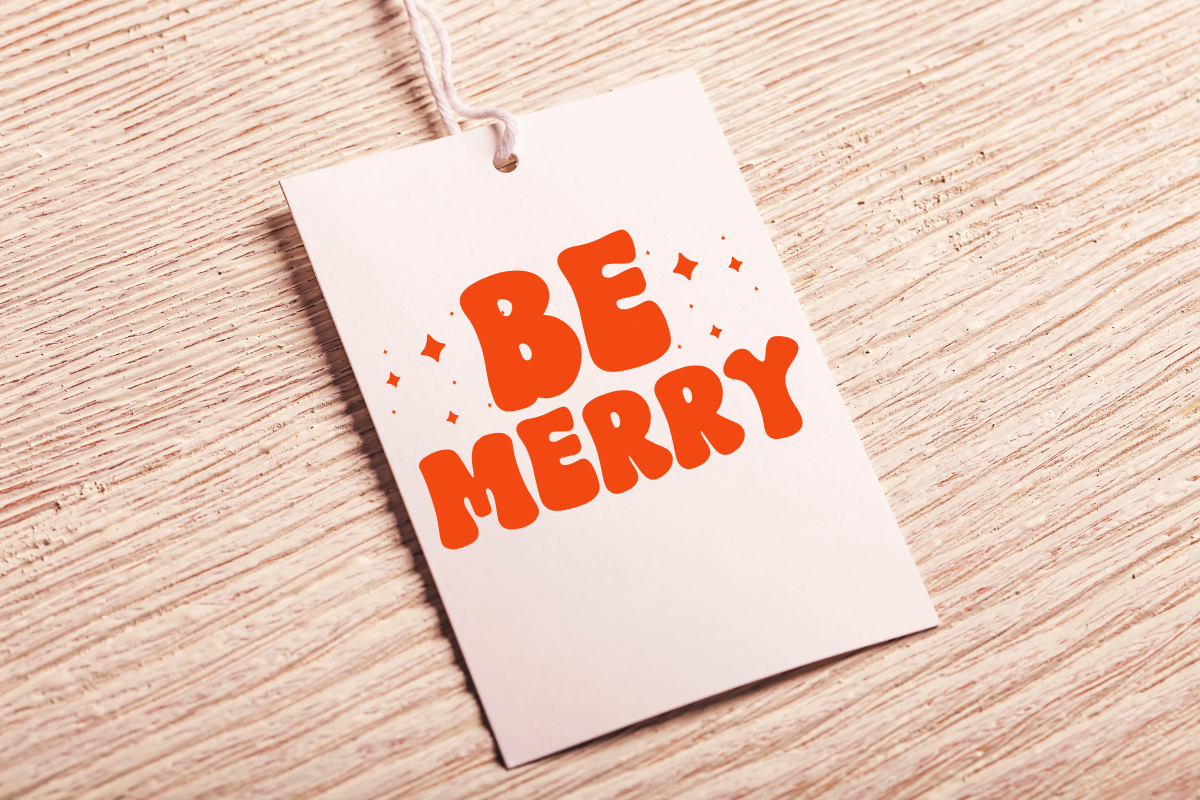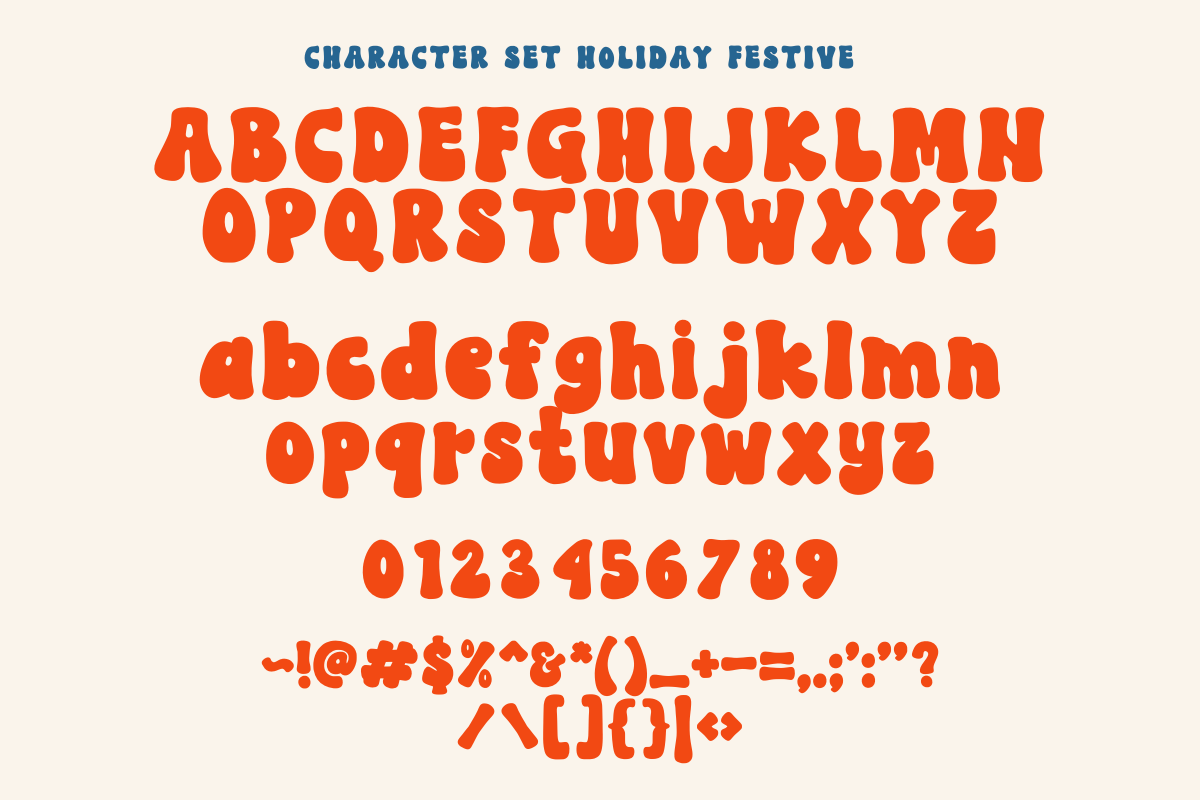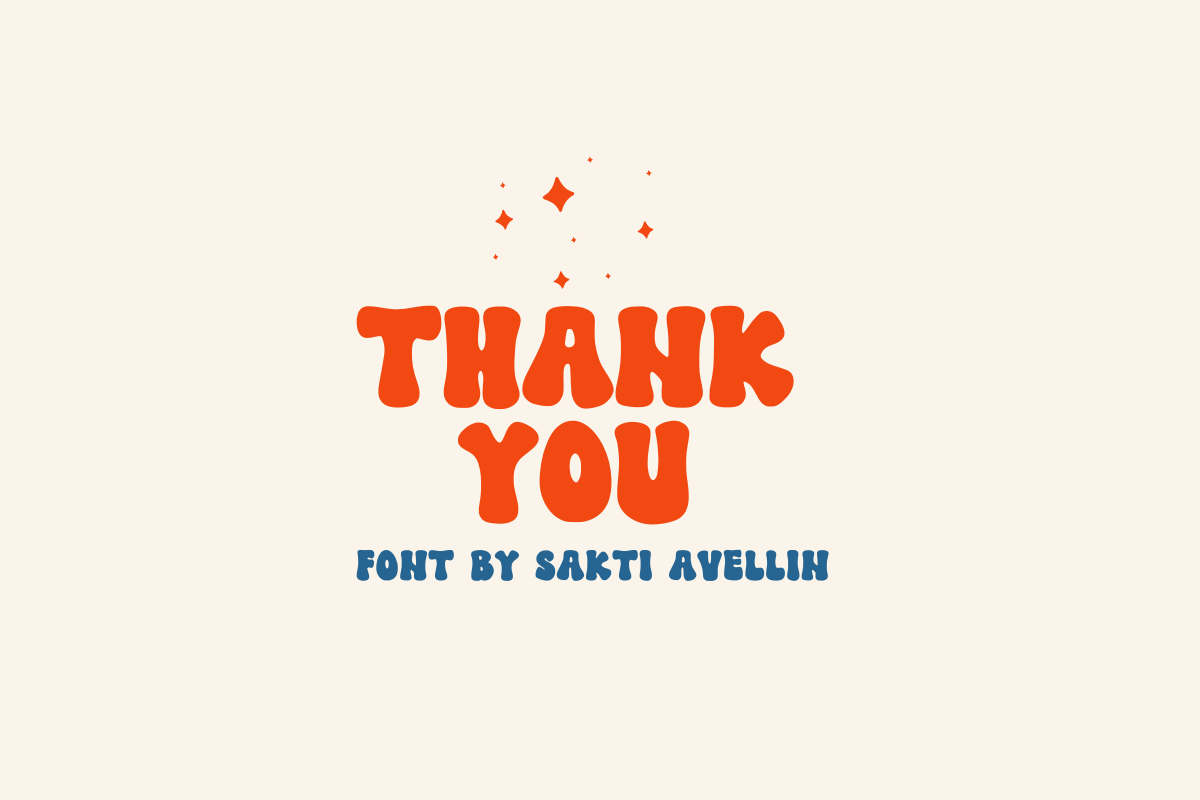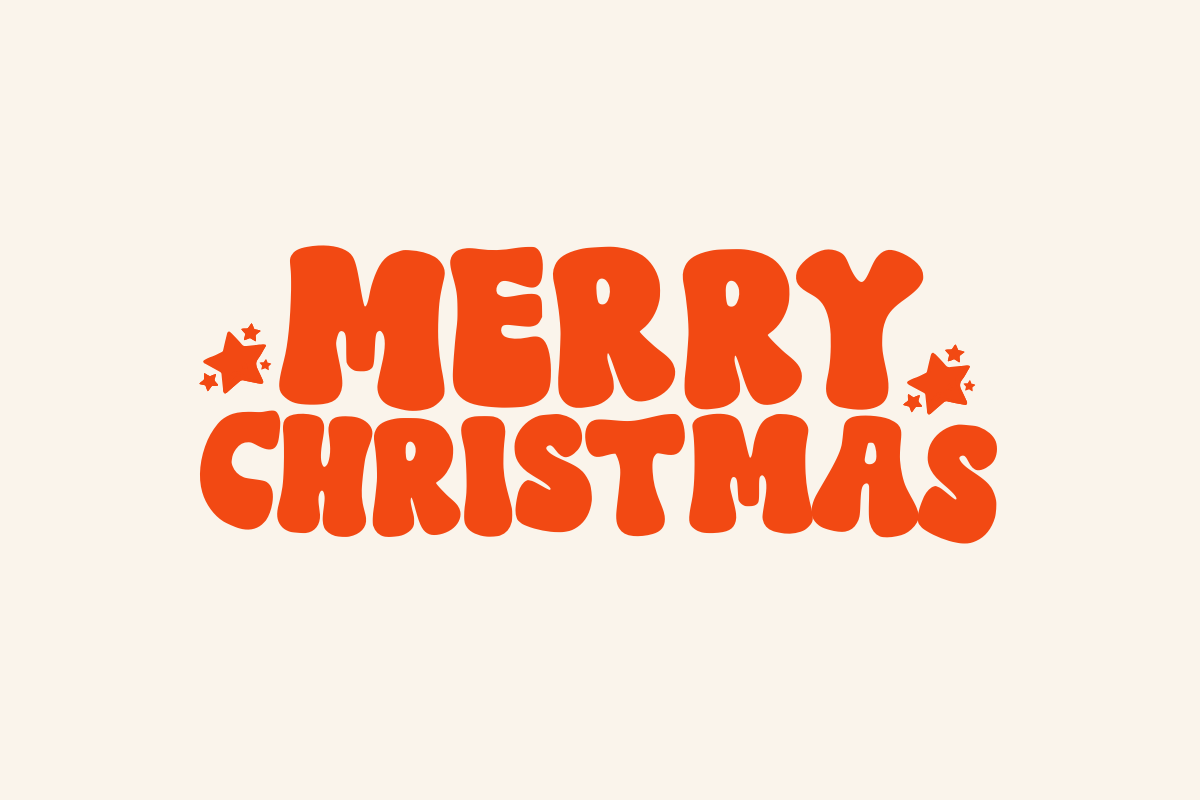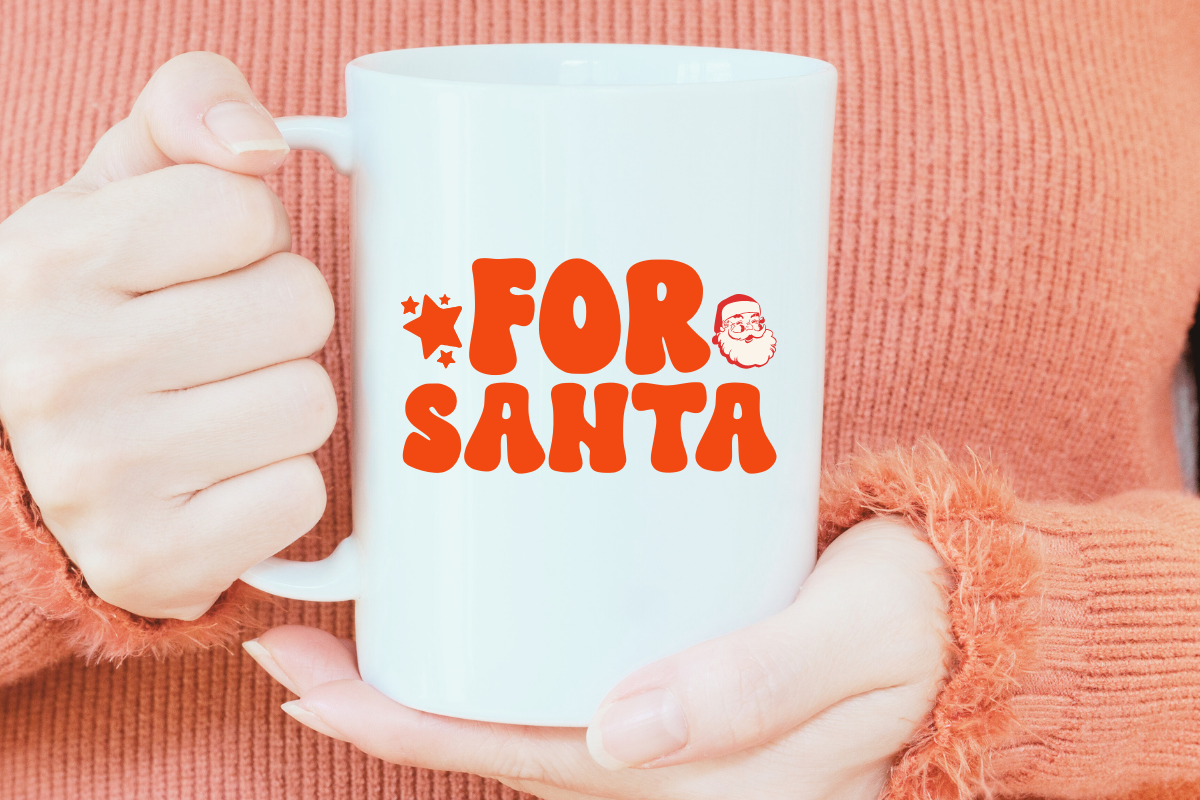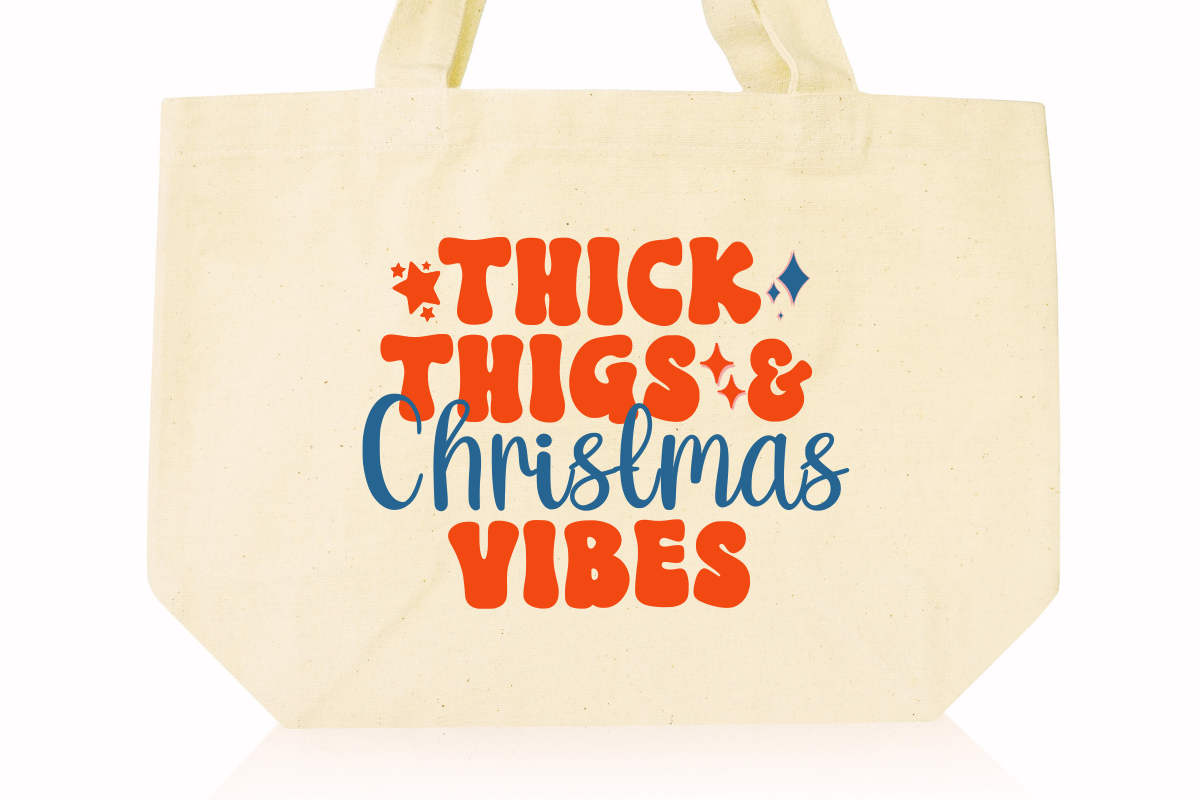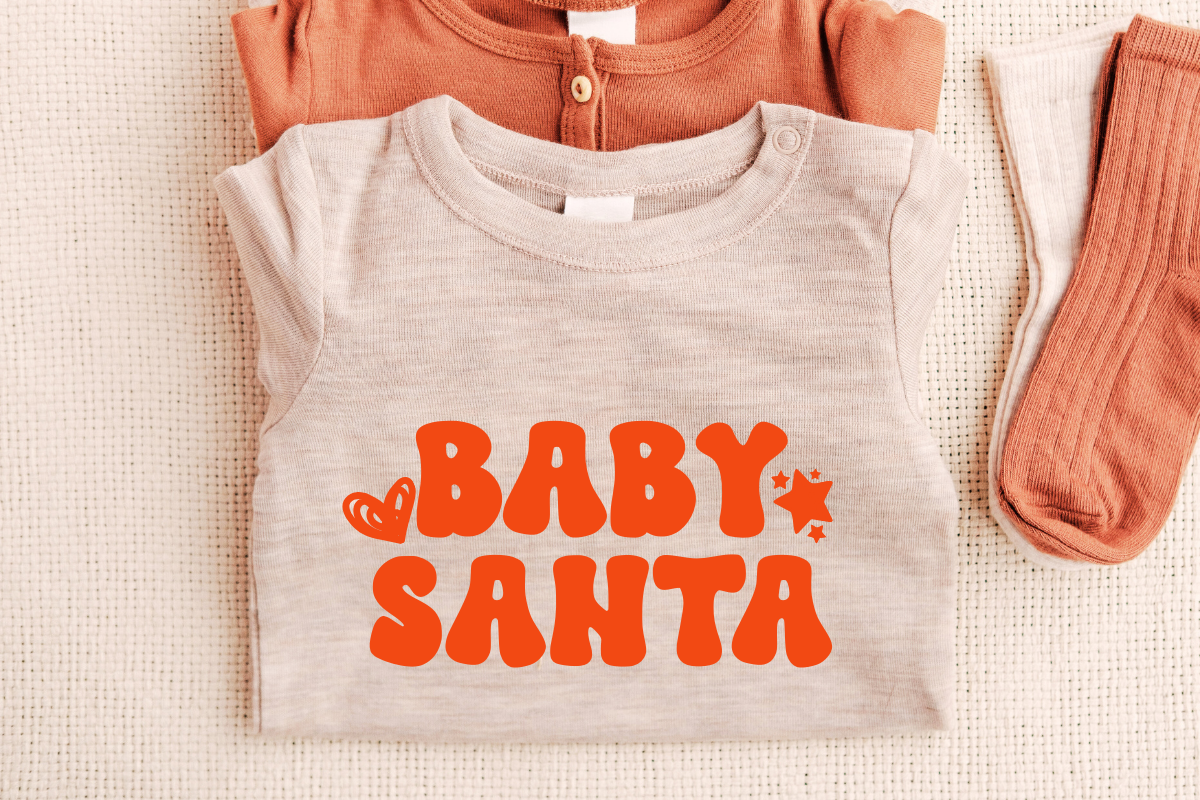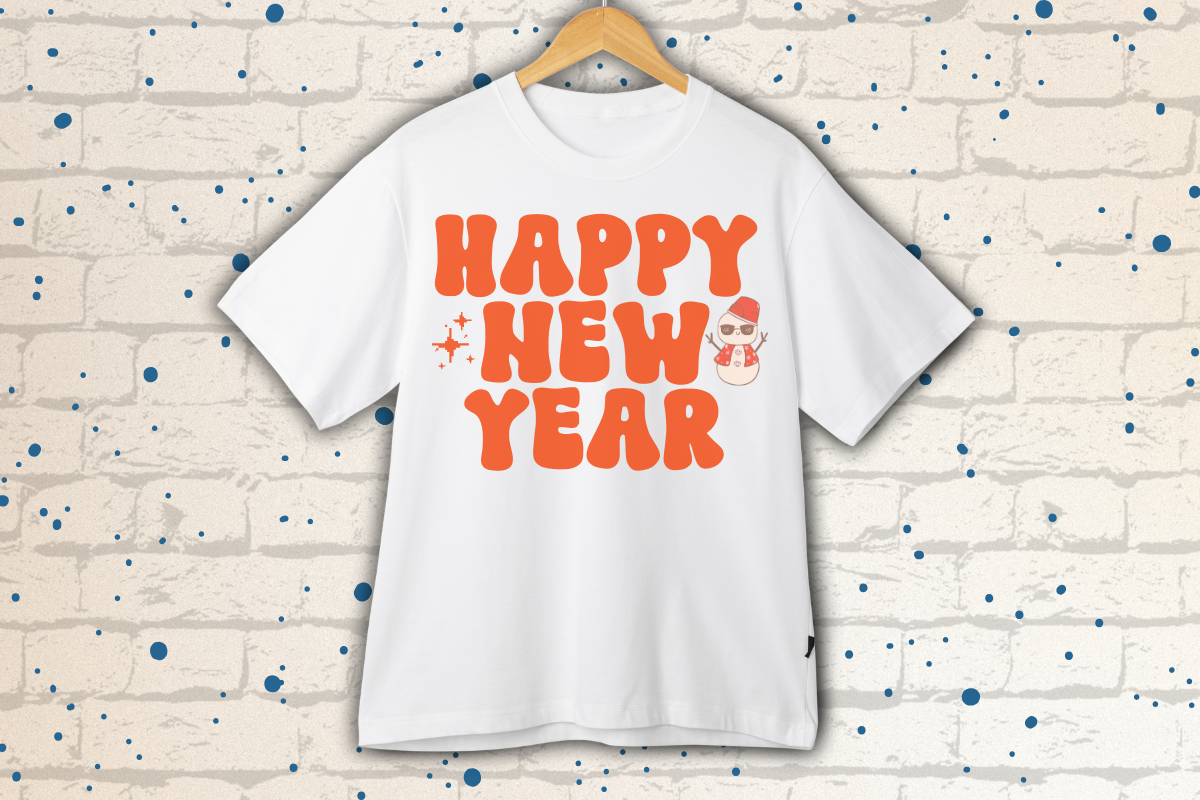
Holiday Festive
Holiday Festive, a retro-inspired font guaranteed to add a dash of whimsy and nostalgia to your designs. Primarily designed for standout quotes, it adds a unique charm to t-shirts, tote bags, and greeting cards. Whether on a steaming mug of cocoa or an eye-catching sales tag, this font ensures any design pops with fun and festive cheer.